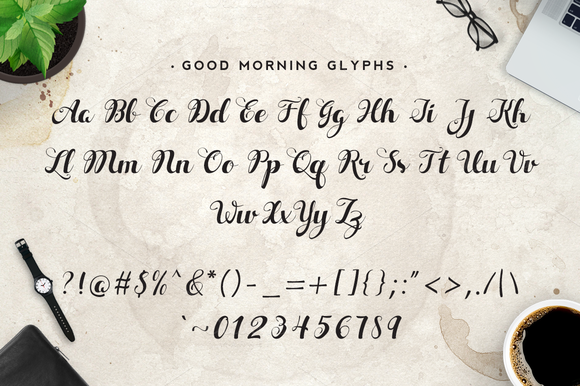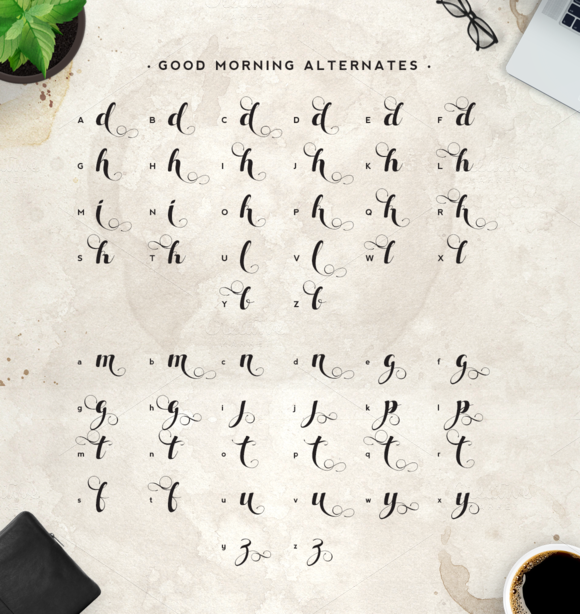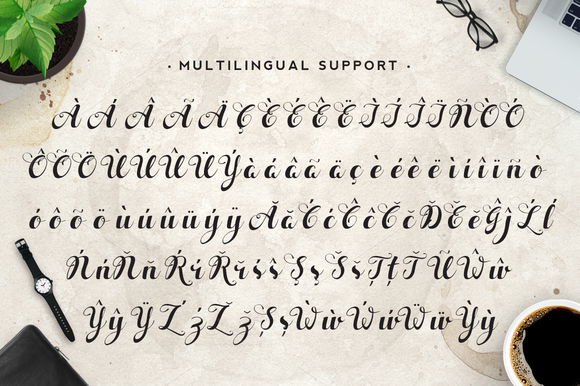
Good Morning Font
About Good Morning Font
Good Morning is a modern script font.  It comes ready and packed for you to use in your logos, badges, postcards, book covers, posters and much more.
It was designed to work good at small sizes and it is also good for embroidery.